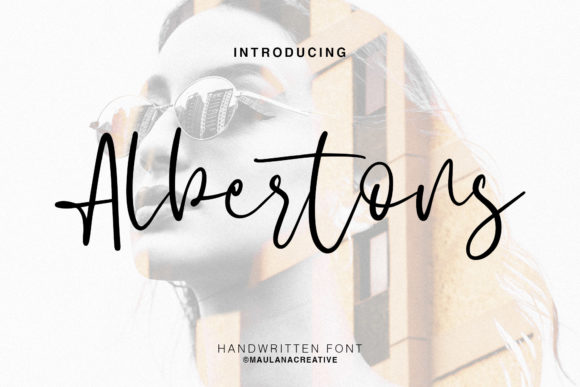
Dive into the world of Albertons Script Font, a captivating script font family born from the creative genius of Maulana Creative. With its playful bouncy baseline and graceful curves, Albertons is not just a font; it's an artistic expression that breathes life into your digital designs.
Immerse yourself in a world of boundless creativity as Albertons Script Font dances across your screen, leaving a trail of elegance and charm. Its smooth flowing strokes evoke a sense of joy and exuberance, making it the perfect choice for crafting enchanting logos, eye-catching social media posts, and heartfelt invitations.
Unleash your imagination and let Albertons Script Font guide you through a symphony of design possibilities. Its versatility knows no bounds, effortlessly adapting to a myriad of projects, from whimsical branding to enchanting wedding invitations.
Picture this: a logo that leaps off the page, capturing attention with its playful curves and dynamic energy. Or, envision a social media post that dances with delight, its message amplified by the expressive charm of Albertons Script Font.
With Albertons Script Font, your designs will blossom into masterpieces, captivating audiences and leaving a lasting impression. Its playful nature invites interaction, while its elegant curves add a touch of sophistication that elevates your creations.
Join the creative revolution and embrace the magic of Albertons Script Font. Let its enchanting strokes weave their way into your designs, transforming them into captivating works of art that resonate with your audience.